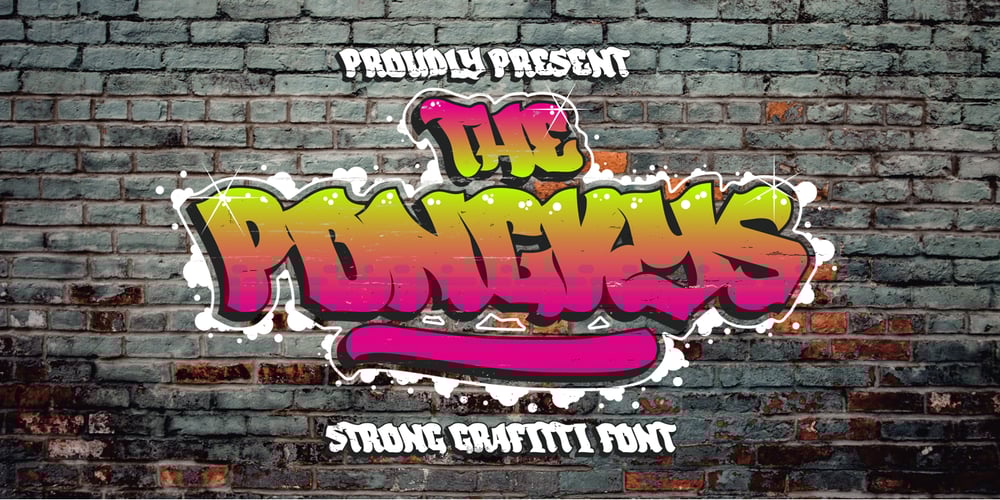
The Ponkys Font Family was designed by Sipanji and published by Sipanji21. The Ponkys contains 1 styles and family package options. The Ponkys is a Strong display font with a graffiti-like appearance. Use this font for any crafting project, apparel design, logotype, advertising, wall decoration, and pretty much anything that requires a personalized look. Take your designs to the next level with this stunning font!